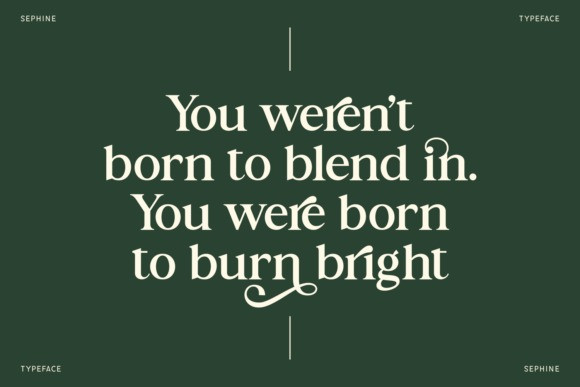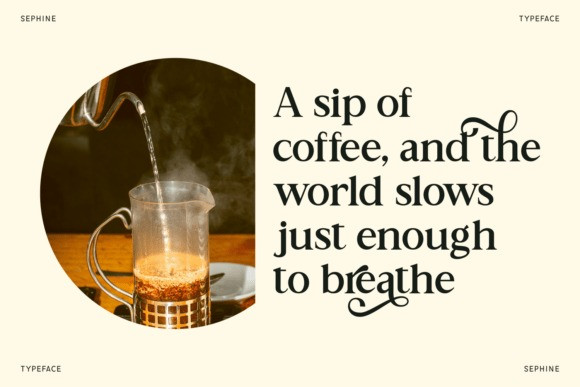
Sephine Font
Sephine Font, a new modern serif font. The ethereal and artistic setting perfectly complements the font’s romantic and elegant character, which is highlighted by its beautiful ligatures and alternate swashes.